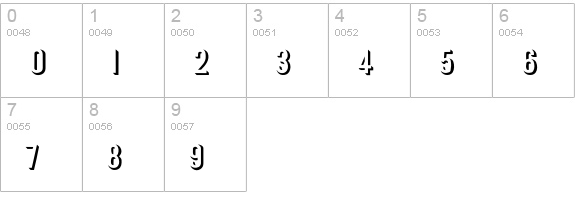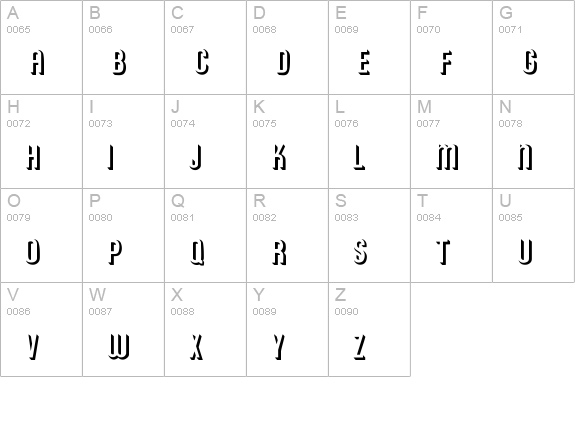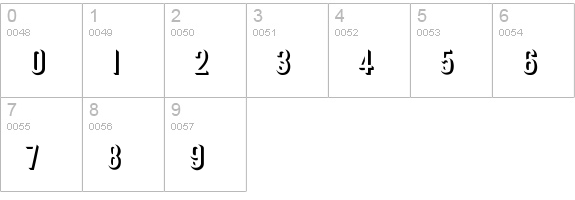
RoundRelief Font Details
Introducing RoundRelief font, a versatile and charming typeface that exudes a sense of friendliness and approachability. With its smooth, rounded edges and playful aesthetic, RoundRelief is perfect for a wide range of design projects, from branding to packaging to social media graphics. What sets RoundRelief apart is its unique blend of modern simplicity and vintage flair, making it a standout choice for designers looking to add a touch of nostalgia to their work. Whether you're creating a bold headline or a subtle text overlay, RoundRelief is sure to make a lasting impression. And the best part? RoundRelief is completely free to download at FontsMarket.com. So why wait? Add this delightful font to your collection today and let your creativity shine with RoundRelief.